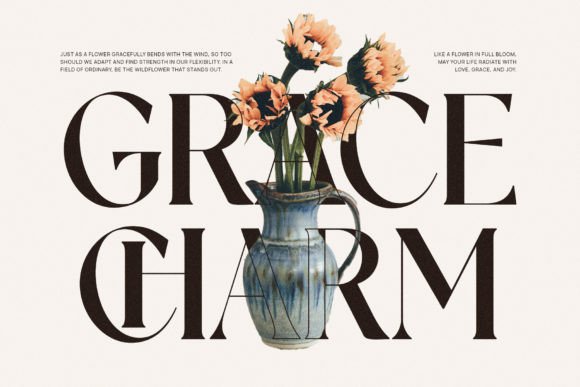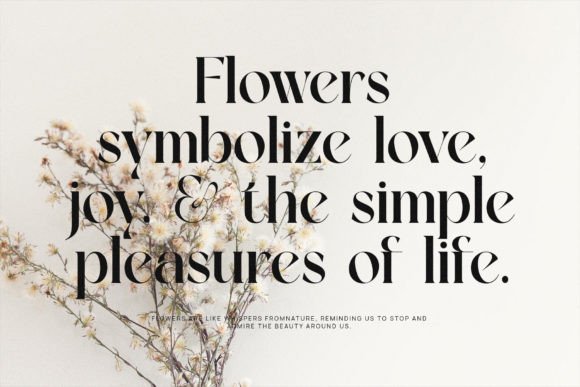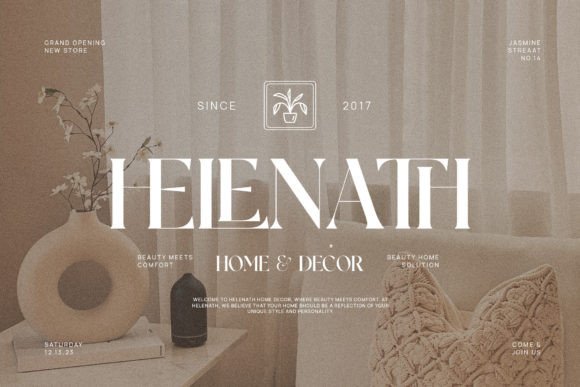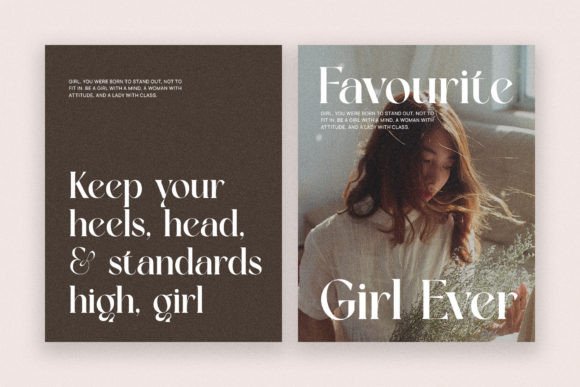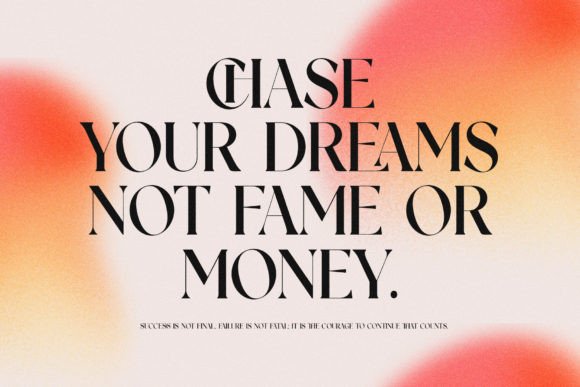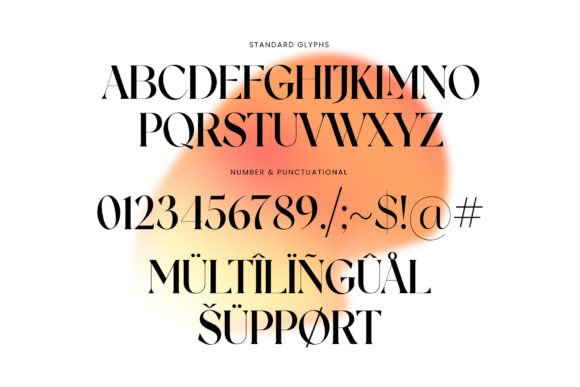
Introducing Effort Font: The Elegant Serif Typeface for Modern Design Needs
In the world of typography, finding the perfect font that combines elegance, class, and modernity can be a daunting task. However, if you’re looking for a typeface that ticks all these boxes and more, look no further than Effort Font. This exquisite elegant serif typeface is designed to cater to a wide range of design needs, making it an indispensable asset for designers and crafters alike.
Elegance Meets Modernity
Effort Font boasts an elegant serif design that exudes sophistication and refinement. Its classy and modern style ensures that it stays ahead of the curve, making it perfect for projects that demand a touch of luxury and contemporary flair. Whether you’re working on branding projects, logos, wedding designs, or social media posts, Effort Font’s versatility shines through, providing a stylish and cohesive look that elevates your designs.
A World of Design Possibilities
One of the standout features of Effort Font is its incredible versatility. It’s designed to meet various design needs, including:
- Branding Projects: Create a lasting impression with a font that communicates elegance and sophistication.
- Logos: Stand out with a unique and memorable logo that incorporates Effort Font’s classy style.
- Wedding Designs: Add a touch of romance and luxury to your wedding designs, invitations, and stationery.
- Social Media Posts: Elevate your social media presence with stylish and engaging posts.
- Advertisements: Grab attention with a font that combines modernity and elegance.
- Product Packaging: Make your products stand out with packaging that exudes class and sophistication.
- Product Designs: Incorporate Effort Font into your product designs for a cohesive and stylish look.
- Labels: Create eye-catching labels that reflect your brand’s elegance and modernity.
- Photography: Use Effort Font for watermarks or photo titles to add a touch of sophistication.
- Invitations: Impress your guests with beautifully designed invitations.
- Stationery: Elevate your stationery with a font that combines elegance and modernity.
PUA Encoded for Ease of Use
Effort Font is PUA (Private Use Area) encoded, which means you can access all the amazing glyphs and ligatures with ease. This feature makes it incredibly user-friendly, allowing you to focus on your design without getting bogged down in complicated font mechanics. With PUA encoding, you’re free to explore a wide range of creative possibilities, making your design process smoother and more enjoyable.
Readability at Its Best
One of the key considerations for any font is readability. Effort Font excels in this area, providing a high level of readability that ensures your message is communicated clearly and effectively. Whether you’re designing for print or digital media, Effort Font ensures that your text is easy to read, making it perfect for a wide range of applications.
Why Choose Effort Font?
With so many fonts available, why choose Effort Font? Here are just a few reasons:
- Unique Style: Effort Font offers a unique blend of elegance and modernity that’s hard to find elsewhere.
- Versatility: Its wide range of applications makes it a valuable addition to any designer’s toolkit.
- Readability: High readability ensures that your designs communicate effectively.
- PUA Encoding: Easy access to glyphs and ligatures makes the design process smoother.
In conclusion, Effort Font is an exceptional elegant serif typeface that combines class, modernity, and versatility. Its wide range of applications, coupled with its PUA encoding and high readability, make it an indispensable asset for designers and crafters. Whether you’re working on branding projects, wedding designs, or social media posts, Effort Font is the perfect choice for adding a touch of elegance and sophistication to your designs.